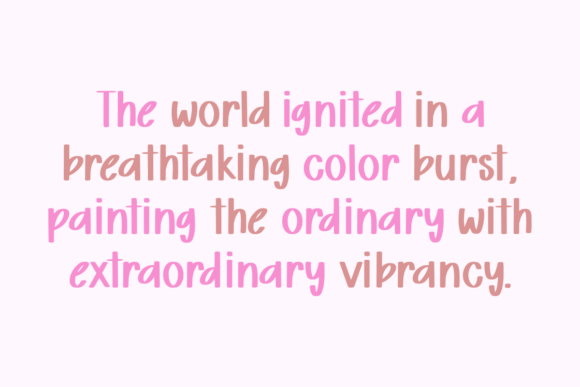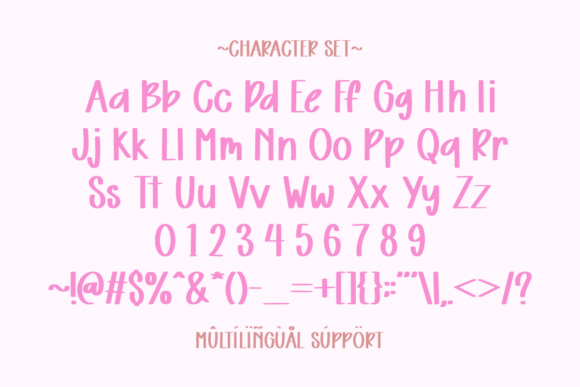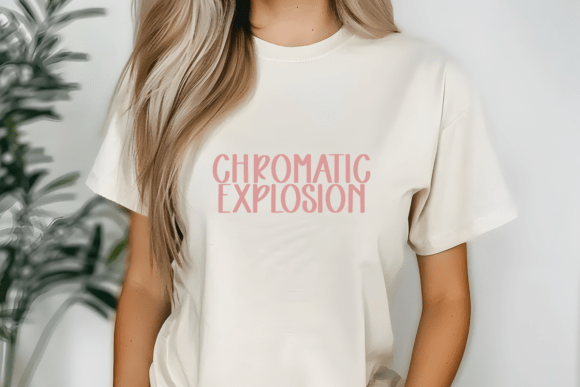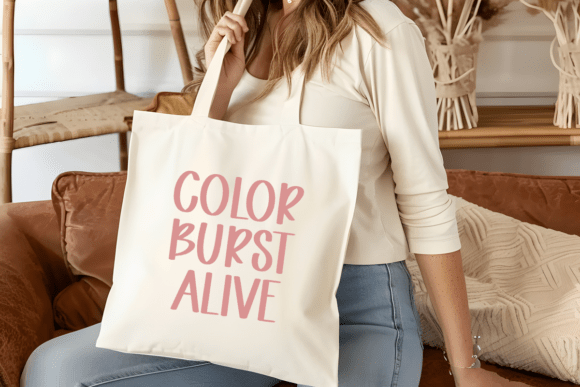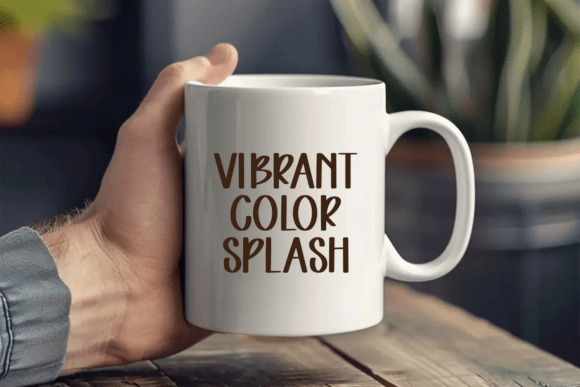
Unlock the Power of Colorful Creativity
Remember the feeling of rummaging through a box of vibrant markers as a child, waiting to unleash your imagination on a blank canvas? That same sense of excitement and possibility is exactly what the Color Burst Font embodies.
This playful, handwritten font is the perfect way to add a burst of energy and joy to your designs. With its bold curves and whimsical charm, it’s an ideal choice for kids’ designs, crafts, and school projects that need a little extra personality. Whether you’re a seasoned designer or just starting out, the Color Burst Font is a valuable addition to your toolkit, offering endless possibilities for creative expression.
Key Features of Color Burst Font
- Font Family: Color Burst Font comes in a variety of font styles, including regular, bold, italic, and bold italic.
- Unique Characteristics: Color Burst Font features a unique blend of bold and vibrant colors, creating a dynamic and eye-catching effect. The font also includes a range of customizable options, allowing users to adjust the color palette and intensity to suit their needs.
- Legibility: Despite its bold and colorful design, Color Burst Font remains highly legible, making it suitable for use in a variety of contexts, including body text and headings.
Design Review: Color Burst Font
At first glance, Color Burst Font is a visually stunning choice for designers seeking to add some flair to their projects. ✨ The unique blend of bright colors and playful shapes creates an eye-catching effect that’s hard to ignore.
Some of the standout features include:
- Customizable color palette, allowing for a high degree of personalization
- Dynamic shape variations, adding depth and visual interest
- High-resolution output, suitable for digital and print applications
However, I do have some reservations:
- ⚠️ Limited font weight options may restrict its use in certain contexts
- ⚠️ Some users may find the font’s bold, playful style overwhelming or distracting
- ⚠️ Font pairing can be challenging due to the dominant color scheme
Overall, I think Color Burst Font is a solid choice for designers looking to inject some personality into their work. While it may not be suitable for all projects, its unique aesthetic and high-quality output make it a compelling option for those who want to make a statement.
The Color Burst Font is ideal for:
1. Creating eye-catching headlines and titles.
2. Designing social media graphics and promotional materials.
3. Adding a pop of color to text-based designs.